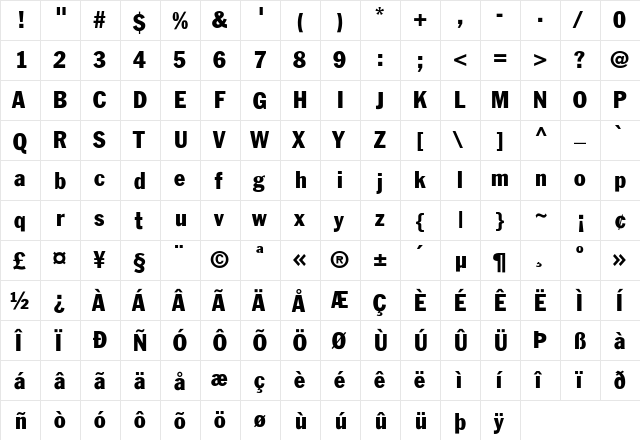
Eluthera-Condensed Regular
Design Context for Eluthera-Condensed Typeface
Eluthera-Condensed offers clean, dependable letterforms without strong stylistic allegiance, making it a practical choice for designers who need flexibility. The condensed width makes it efficient for tight spaces without sacrificing legibility.